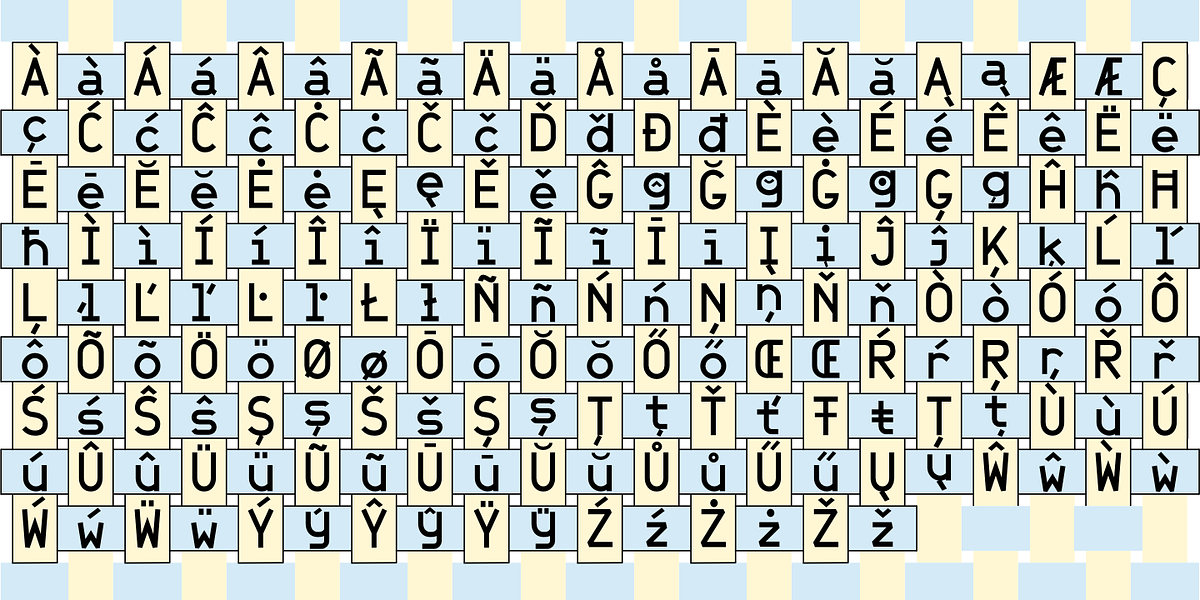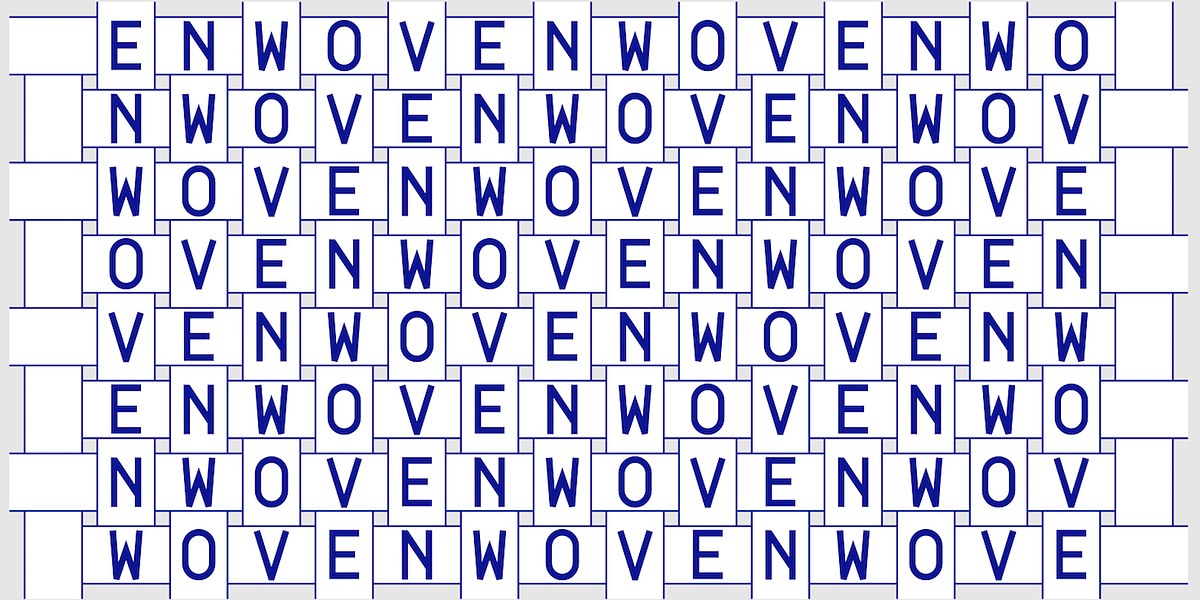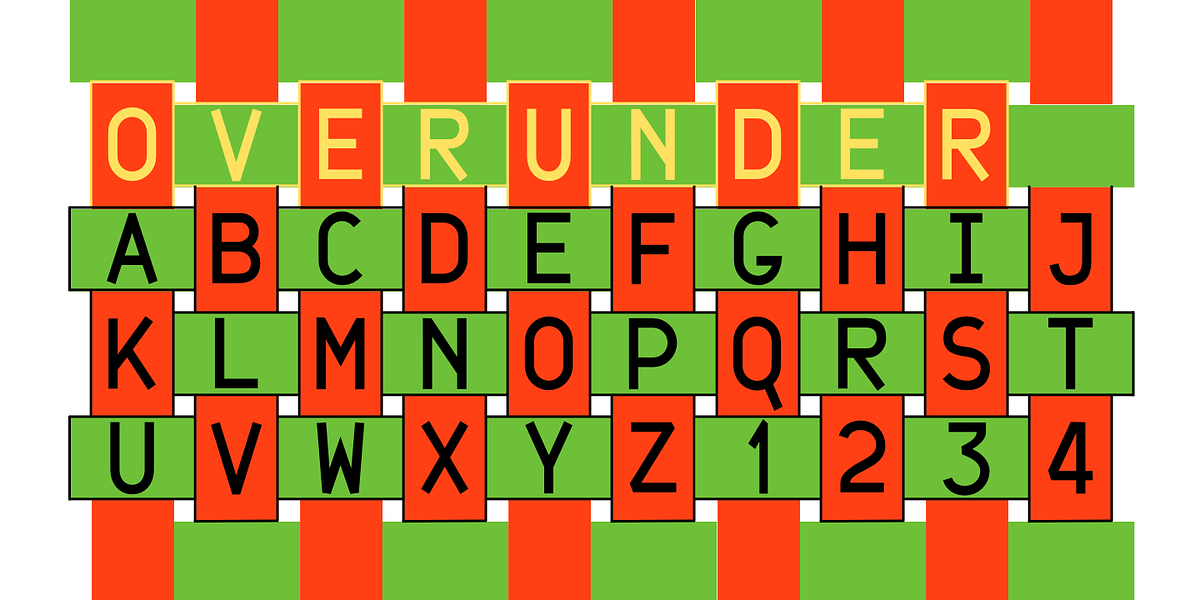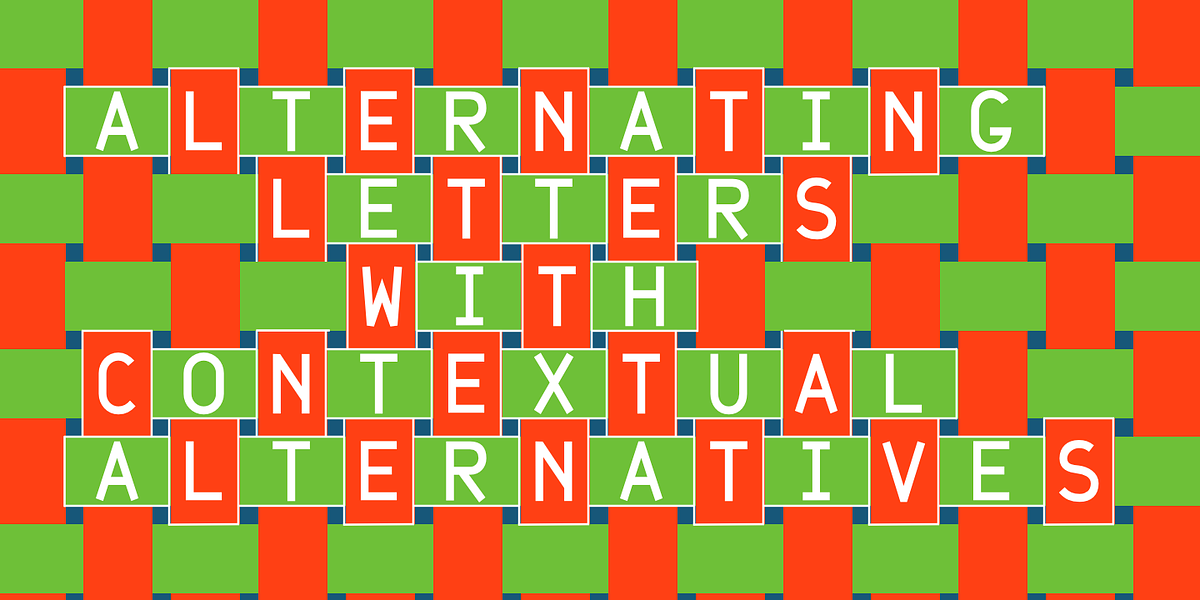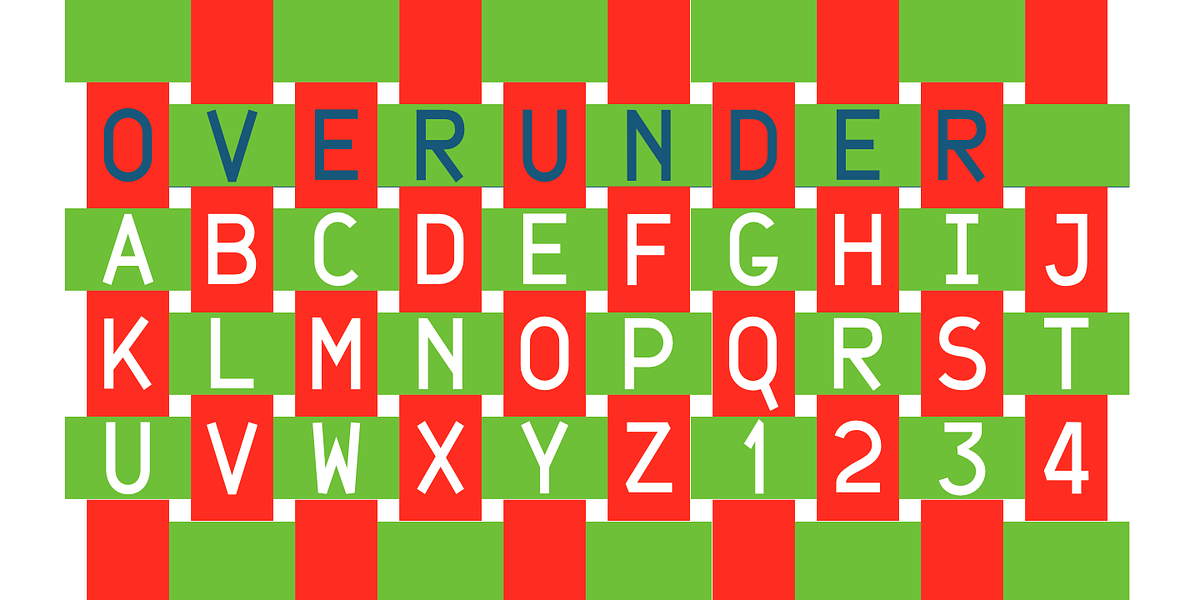
OverUnder
OverUnder is a distinctive font family designed to create a woven effect. It features two fonts that alternate between vertical and horizontal slabs, resulting in a visually appealing pattern. This makes it suitable for display purposes, branding, and adding unique decorative elements to designs.